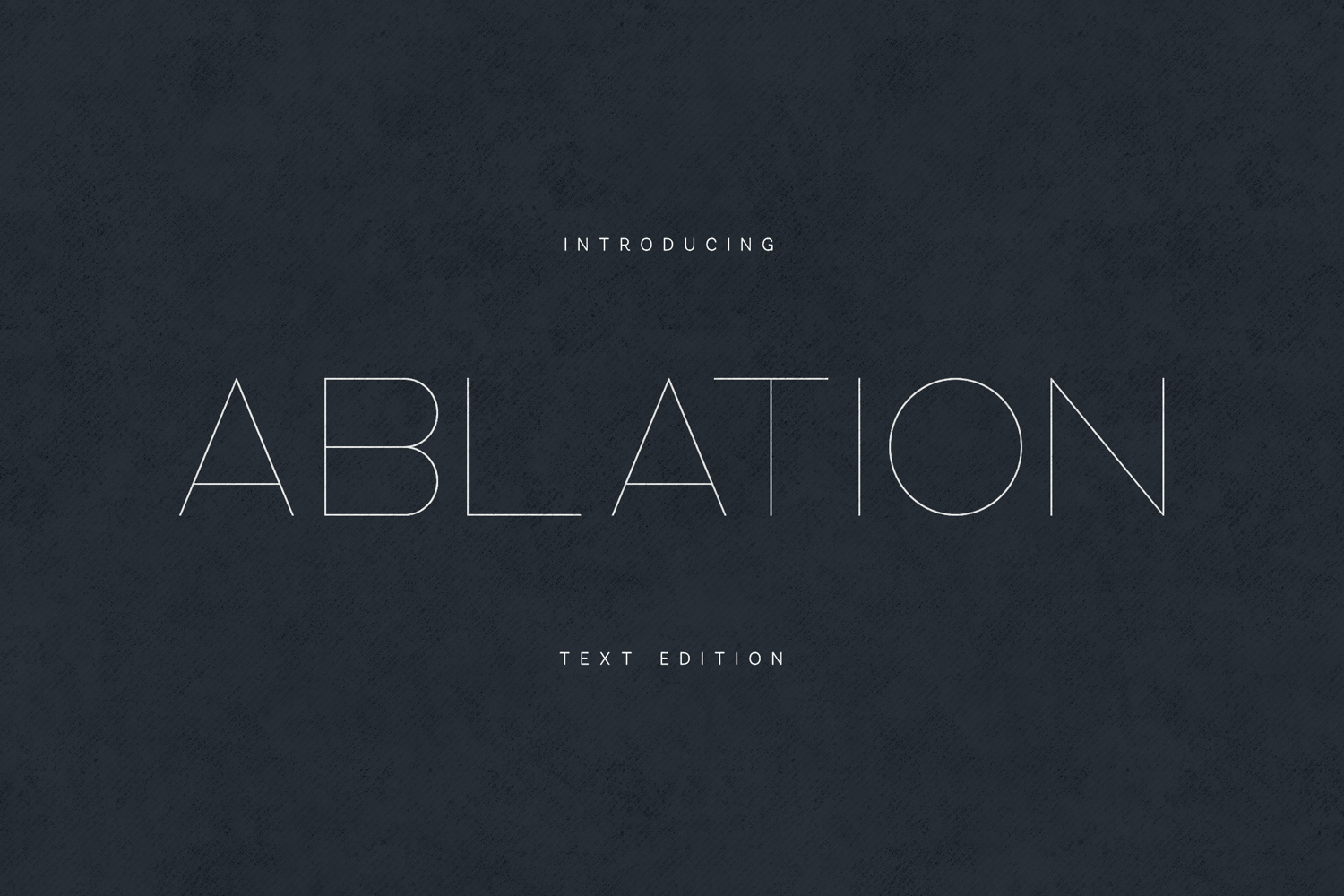
Ablation Ultra Thin Geometric Sans Serif Font
Ablation is an ultra-thin geometric sans serif font designed with precision, balance, and modern elegance in mind. Built from clean monoline strokes and minimal structure, it delivers a refined, architectural feel perfect for contemporary design work.
Its lightweight construction makes it ideal for luxury branding, editorial layouts, fashion campaigns, high-end packaging, logo design, website headers, and sophisticated typography compositions. Ablation brings clarity and space into every layout while maintaining strong visual identity.
The font includes uppercase, lowercase, numerals, punctuation, and multilingual support with extended Latin characters. Carefully spaced and optimized for display usage, it performs beautifully in large headlines and minimal compositions.
Perfect for designers looking for a sleek, futuristic, and premium typeface that elevates modern visual storytelling.